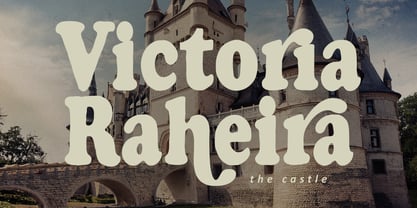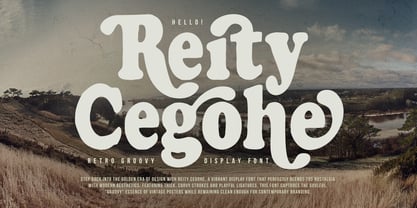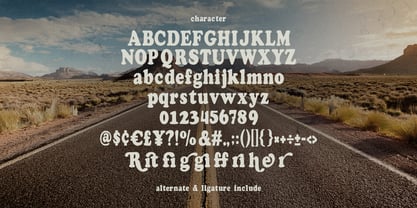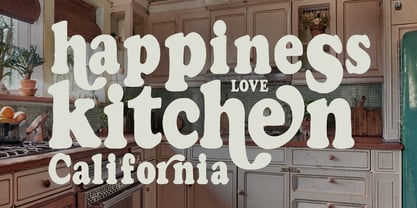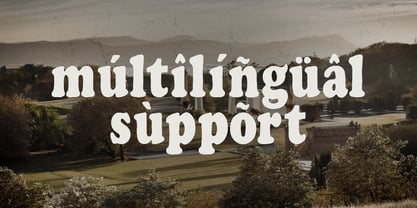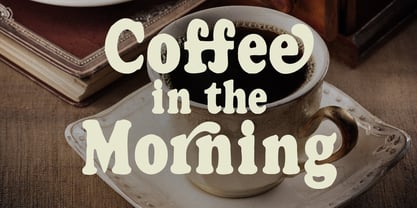
MC Reity Cegohe
by Maulana Creative
The MC Reity Cegohe Font Family was designed by Gilang Maulana and published by Maulana Creative. MC Reity Cegohe contains 1 styles. More about this family
Step back into the golden era of design with Reity Cegohe, a vibrant display font that perfectly blends 70s nostalgia with modern aesthetics. Featuring thick, curvy strokes and playful ligatures, this font captures the soulful, "groovy" essence of vintage posters while remaining clean enough for contemporary branding. Whether you're designing a cozy café logo, a bold magazine headline, or eye-catching social media graphics, Reity Cegohe adds a layer of warmth and organic personality to every project. It comes packed with multilingual support, unique alternates, and elegant ligatures to give your typography a custom, hand-lettered feel.
Designers: Gilang Maulana
Foundry: Maulana Creative